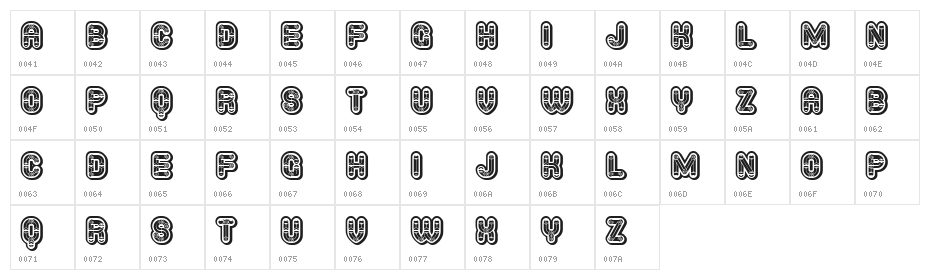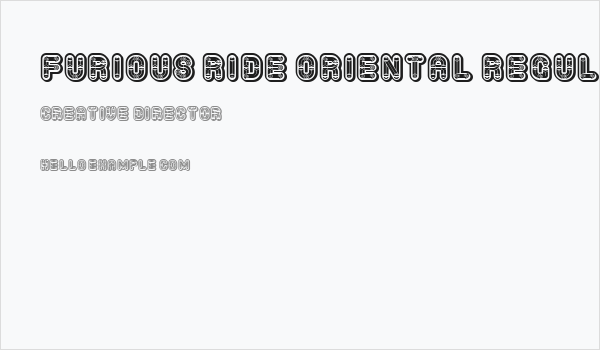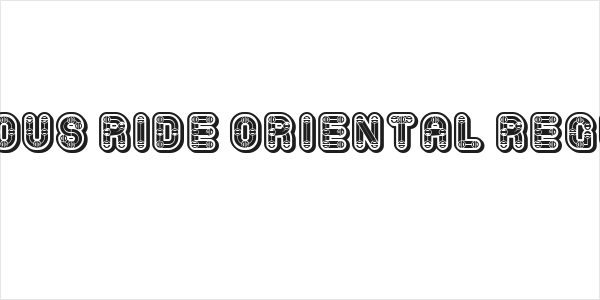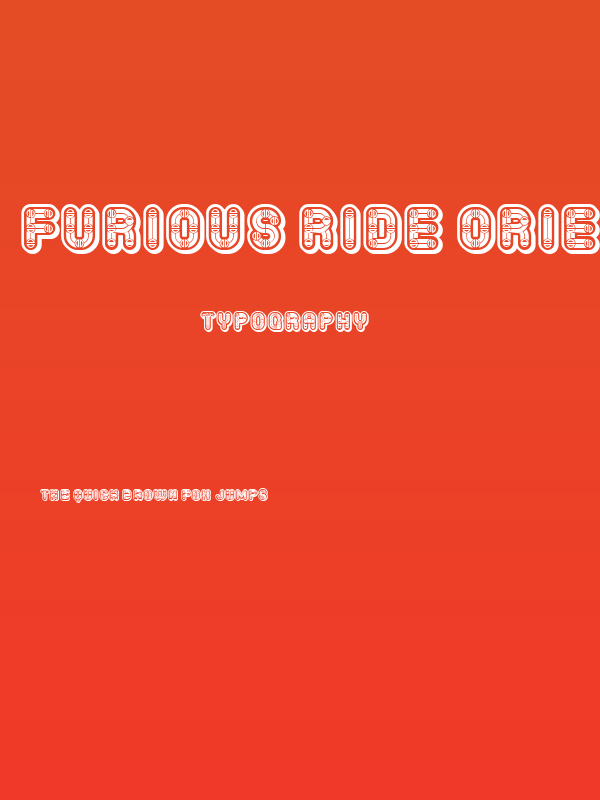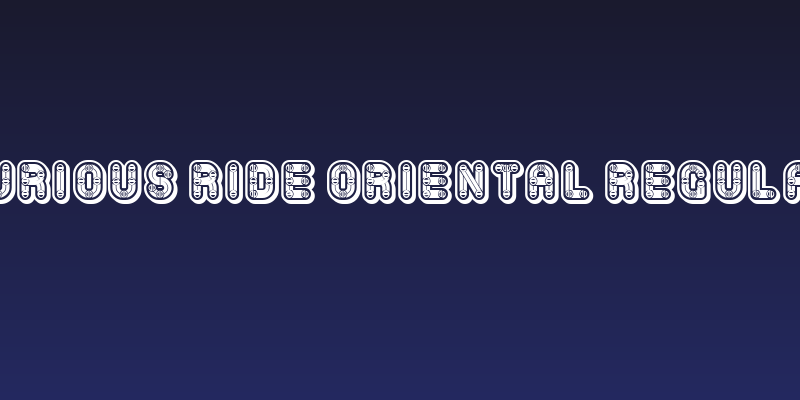
Furious Ride Oriental Regular Font
Furious Ride Oriental Regular Description
This font features a bold and decorative style with intricate patterns within each character. The letters are outlined with a thick black border, creating a striking contrast against the detailed inner designs. The font maintains a consistent width and height across all characters, providing a uniform appearance. The geometric patterns inside the letters give it an oriental and futuristic feel, making it suitable for eye-catching designs. The font includes both uppercase and lowercase letters, numbers, and a selection of special characters, all maintaining the same decorative style.
| Proposed Projects | Ideal for branding, posters, album covers, and any project requiring a bold, decorative touch. |